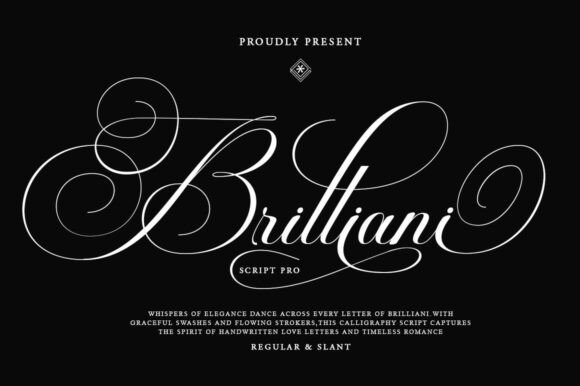
The Quest for the Perfect Script Font: Discovering Brilliani Script Pro
I still remember the frustration of scrolling through font after font, searching for the perfect script font for a client’s wedding invitation project. The font had to be elegant, feminine, and easy to read – a tall order! That’s when I stumbled upon Brilliani Script Pro, a beautiful copper script font with a modern twist. In this article, I’ll share my experience with this stunning font, its features, and how to make the most of it in your designs.
An Honest Review of Brilliani Script Pro
- 💃 Elegant and sophisticated design, perfect for formal events and luxury brands
- 🔍 High level of detail, making it suitable for high-end applications
- 💫 Smooth, clean lines and beautiful connections between letters
- 👀 Attractive and feminine, with a touch of sensuality and glamour
- 📚 Easy to read, even in smaller sizes
While Brilliani Script Pro is an exceptional font, there are a few things to keep in mind:
- 🤔 Some users may find the font a bit too ornate for casual or informal projects
- ⚠️ As with any script font, it may not be the best choice for body text or long paragraphs
The Story Behind Brilliani Script Pro
Brilliani Script Pro was designed with the goal of creating a classic, elegant script font that would appeal to designers and crafters alike. The font’s creator drew inspiration from traditional copper script fonts, adding a modern twist to make it more versatile and easy to use.
Q: What is Unicode PUA, and how does it benefit Brilliani Script Pro?
A: Unicode PUA (Private Use Area) is a character encoding standard that allows font creators to include additional characters and glyphs in their fonts. In the case of Brilliani Script Pro, Unicode PUA enables users to access a wide range of alternative characters, ligatures, and stylistic alternates, making the font more versatile and expressive.
Q: Is Brilliani Script Pro suitable for body text?
A: While Brilliani Script Pro is an elegant and readable font, it’s primarily designed for display purposes, such as headings, titles, and short paragraphs. For body text, you may prefer a more straightforward, sans-serif font.